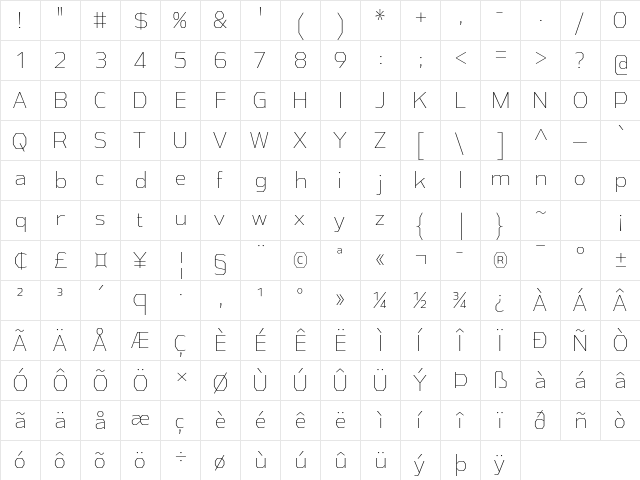
Athabasca Condensed ExtraLight
Design Context for Athabasca Typeface
Athabasca offers clean, dependable letterforms without strong stylistic allegiance, making it a practical choice for designers who need flexibility. Its slender proportions lend an understated elegance to any composition. Its narrow stance lets it pack a punch even in space-constrained designs.
Pro Tip: Pair Athabasca with a font of contrasting weight or personality to build a more expressive typographic hierarchy.